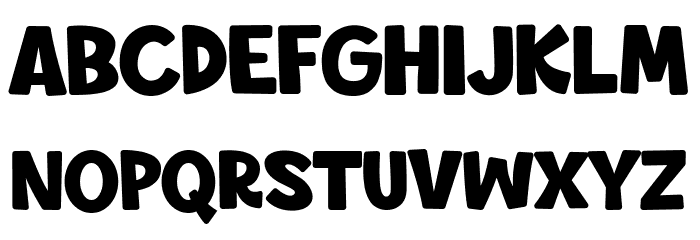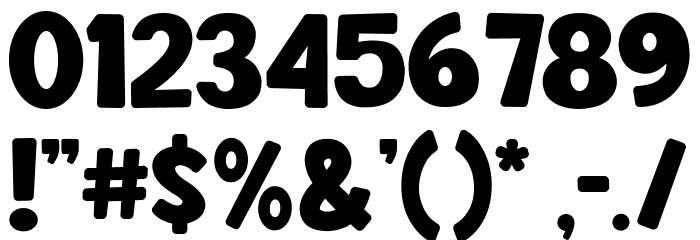
Pure Joy Font
This font exudes a playful and bold character, with its thick, rounded strokes that give it a friendly and approachable appearance. The letters are uniformly bold, with a slight tilt that adds a dynamic and energetic feel. The characters are well-spaced, ensuring readability while maintaining a cohesive look. Its boldness and rounded edges make it ideal for capturing attention, making it perfect for headlines or any project that requires a fun and lively touch. The numbers and special characters are consistent with the overall style, ensuring a harmonious look across all text elements.
A playful, bold font with rounded strokes and a dynamic feel.
- Proposed Projects: Ideal for children's books, playful branding, event posters, and any design needing a lively touch.
- Overall Style: Playful, Energetic